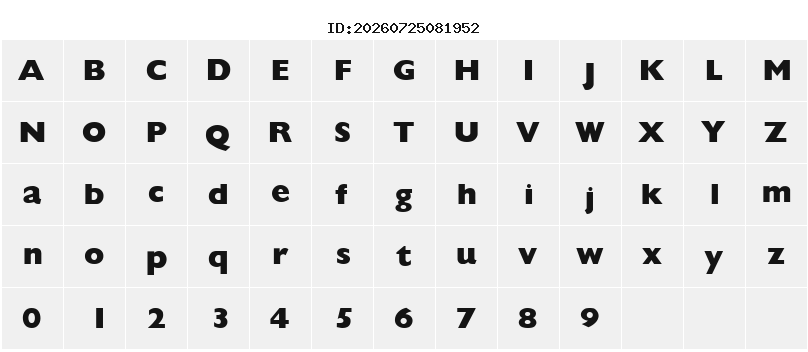
Giligan ExtraBold Preview
• Font Name: Giligan ExtraBold
• Font ID: (C)opyright 1992 W.S.I. GiliganExtraBold Regular
• Full Font Name: Giligan ExtraBold
• Version: (C)opyright 1992 W.S.I. 8/2/92
• PostScript Name: GiliganExtraBold
About Giligan ExtraBold.ttf
Giligan ExtraBold.ttf is a modern, elegant sans-serif font designed for ultimate readability and visual harmony. Perfect for branding, headlines, web design, and print materials.